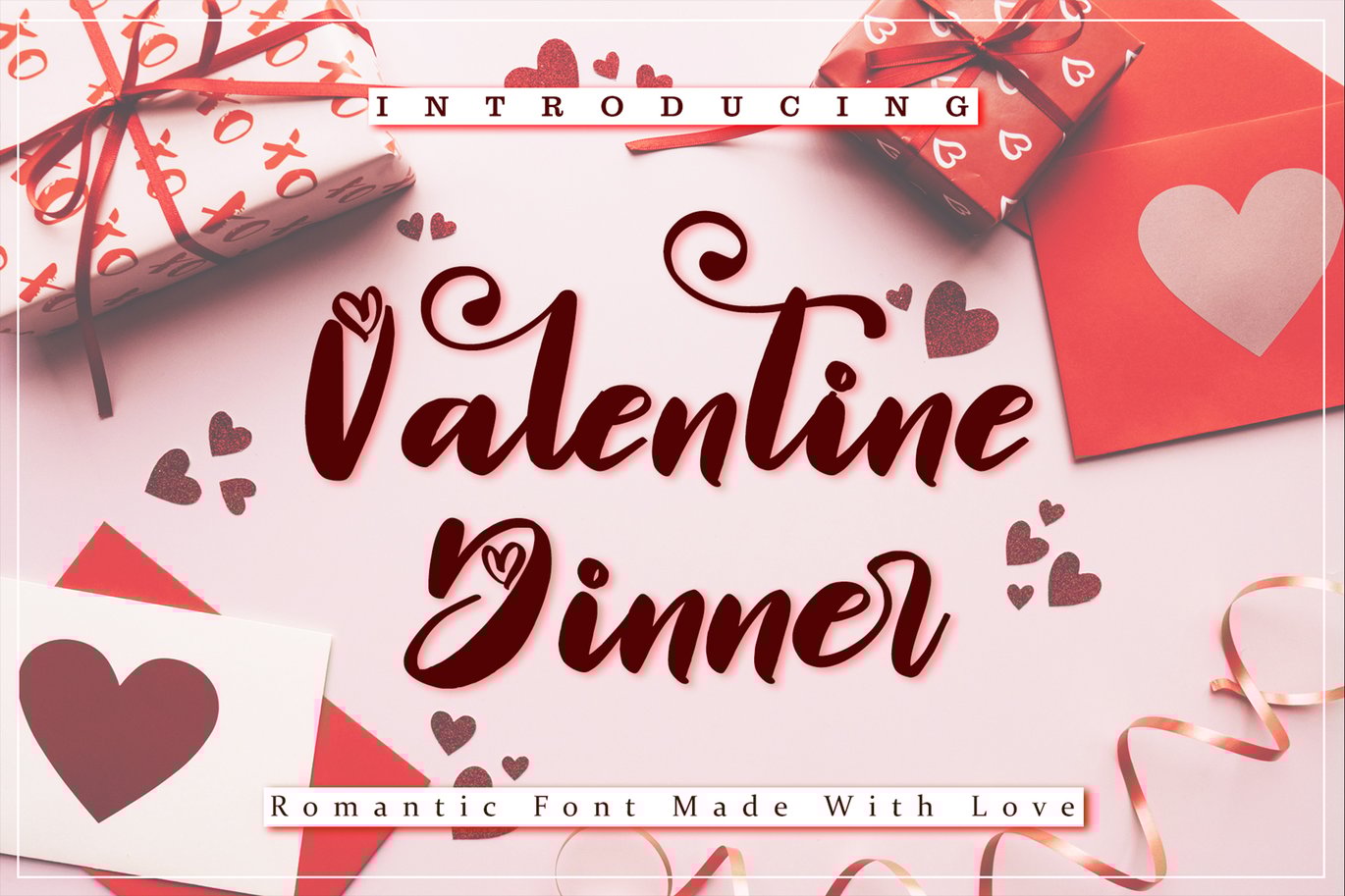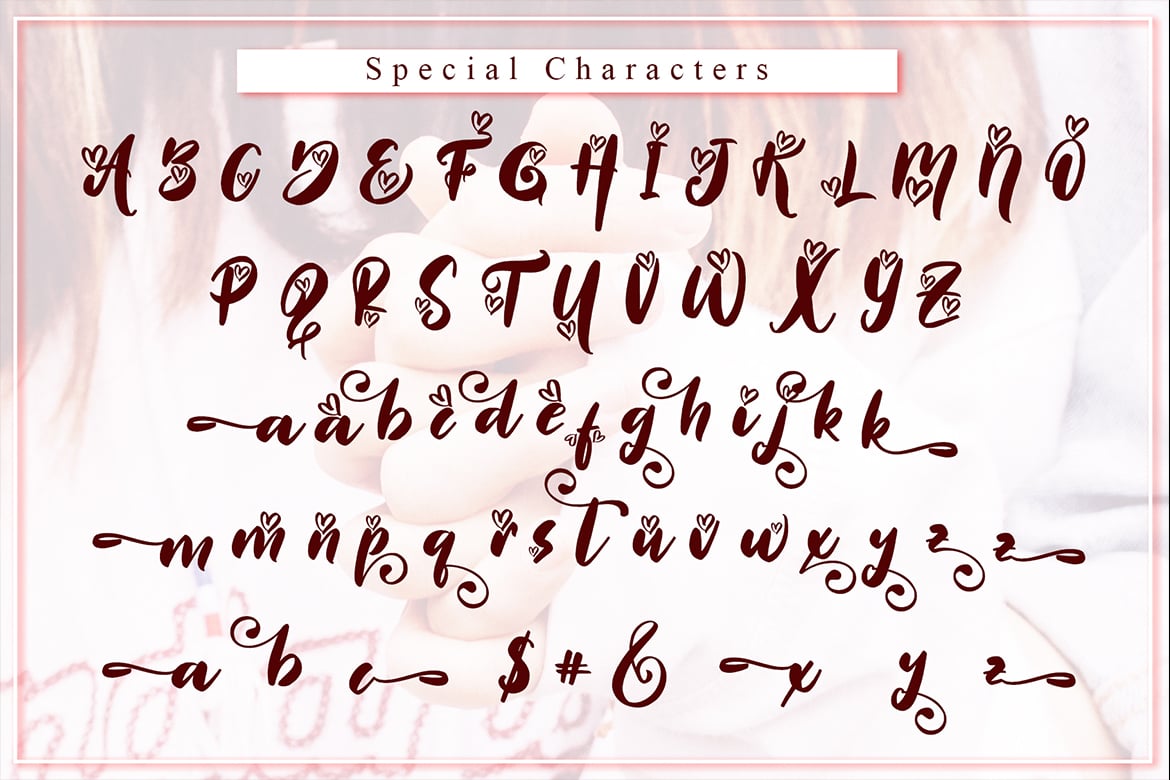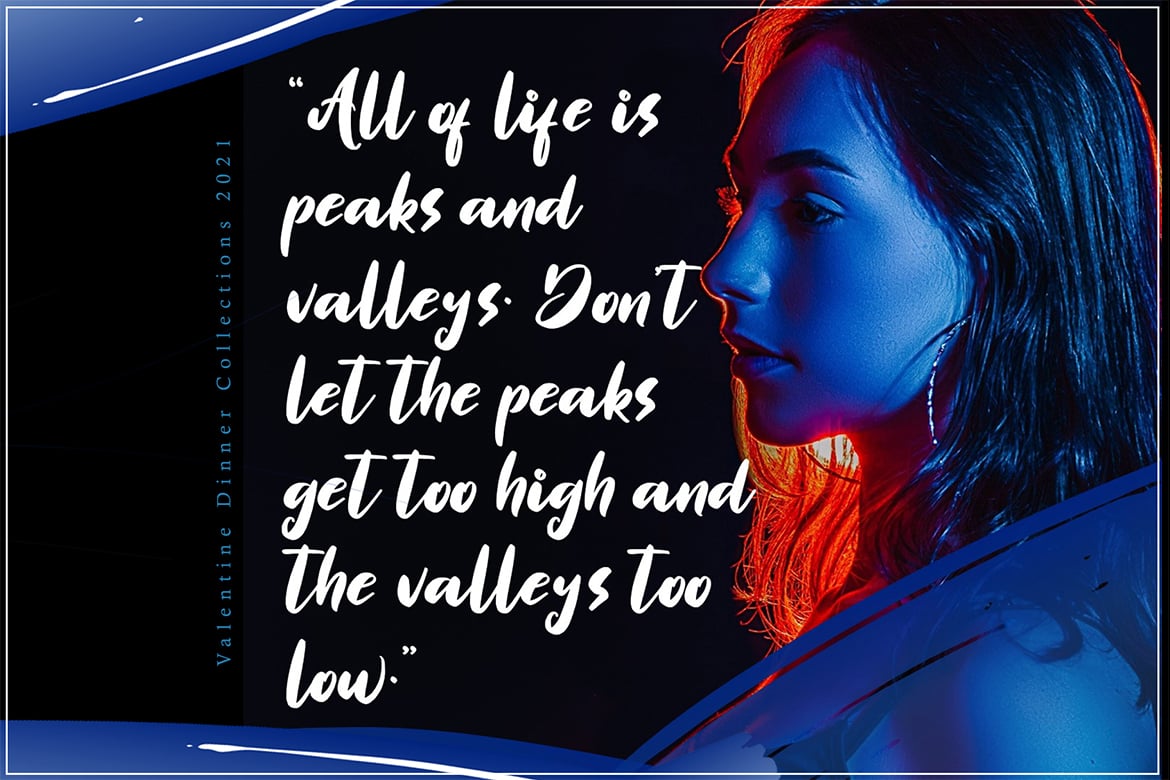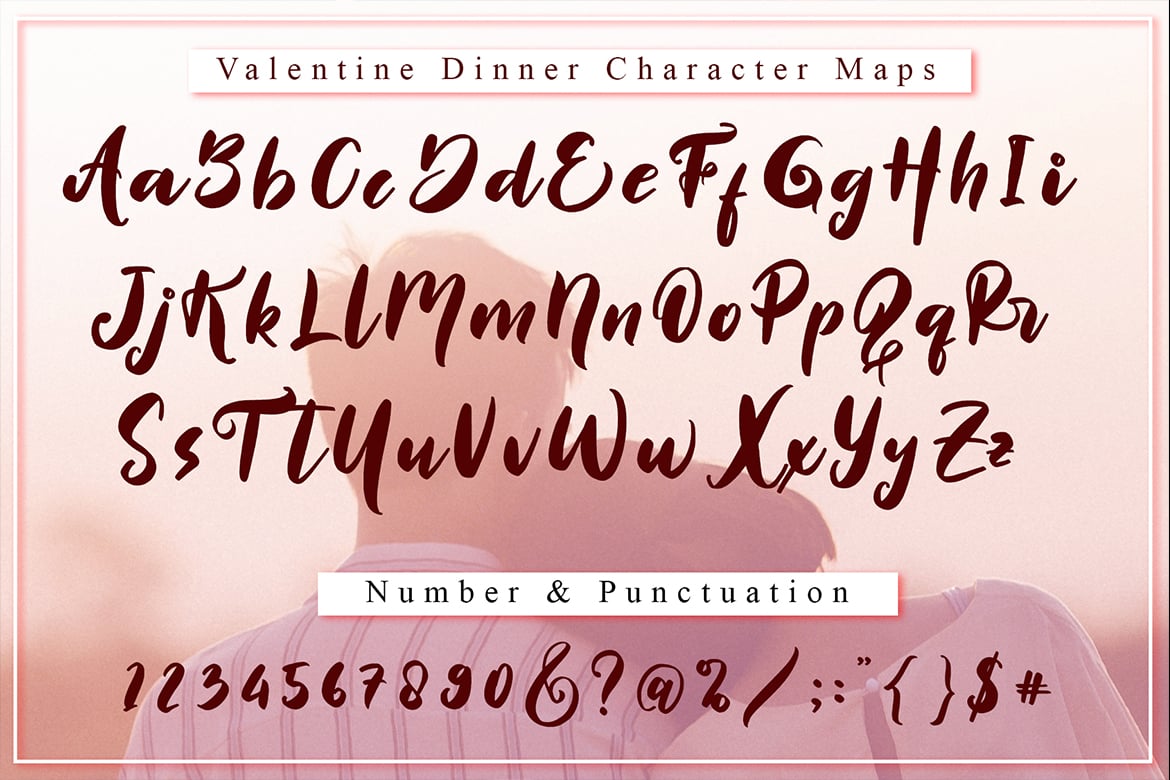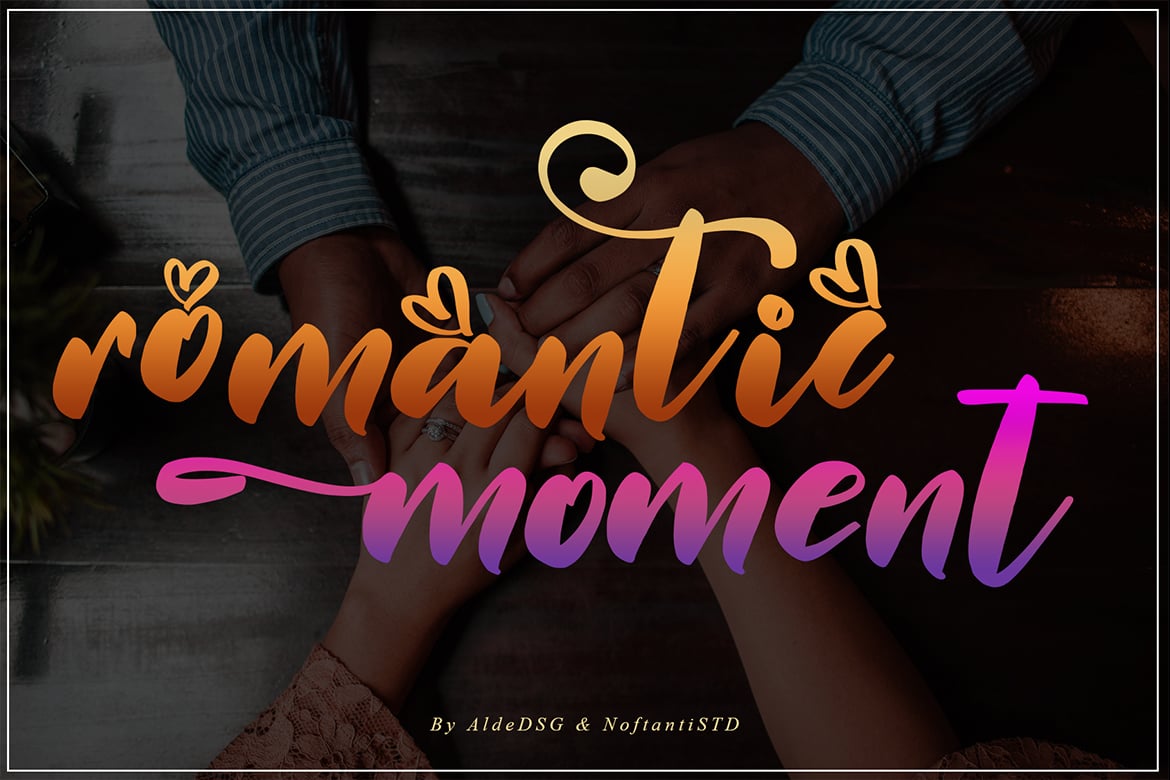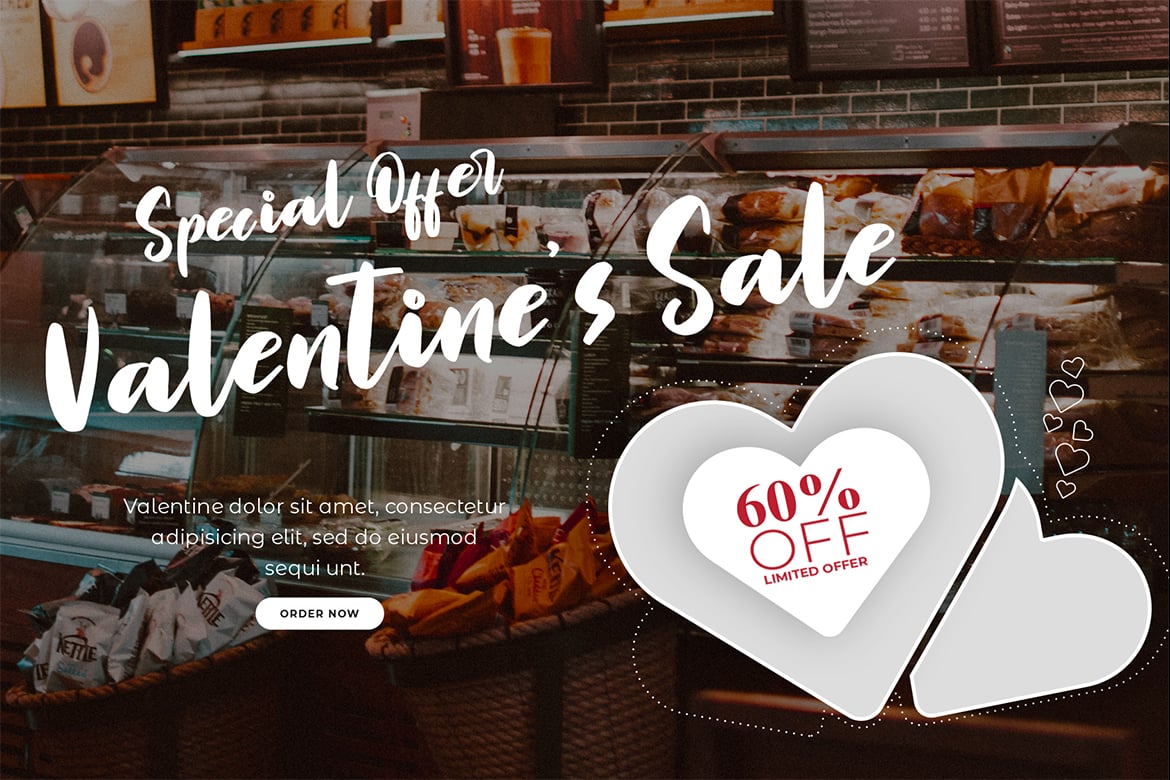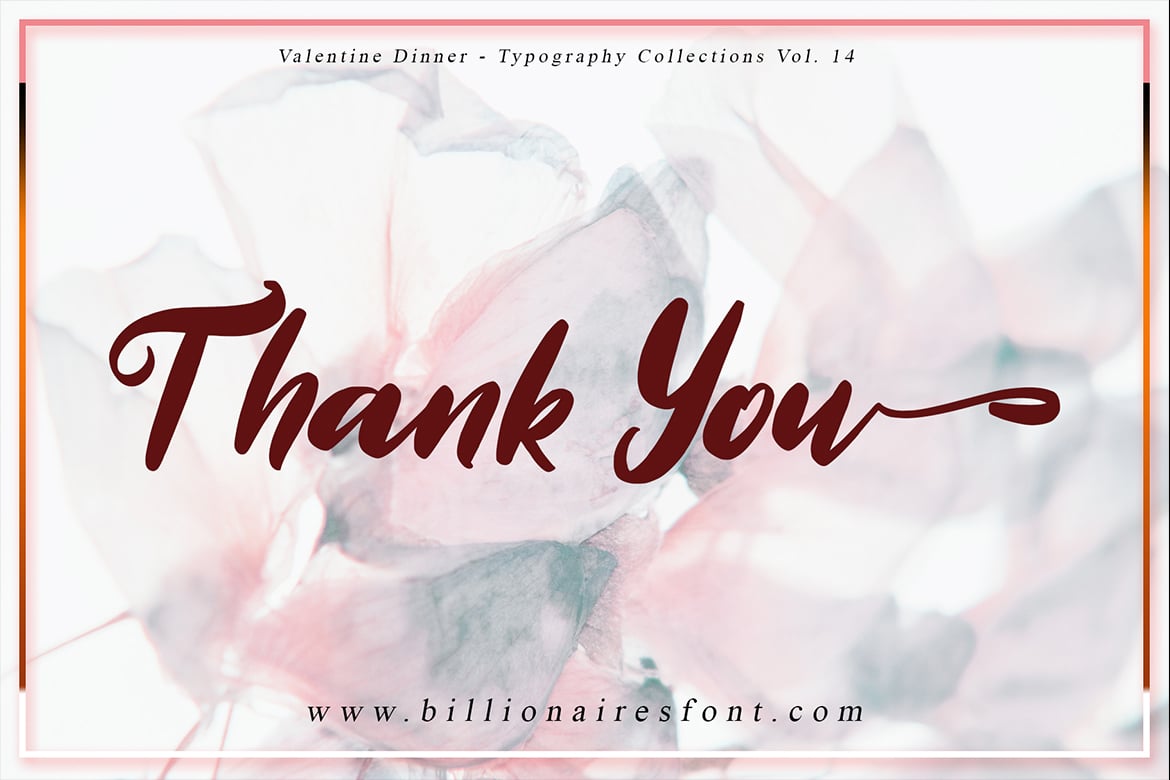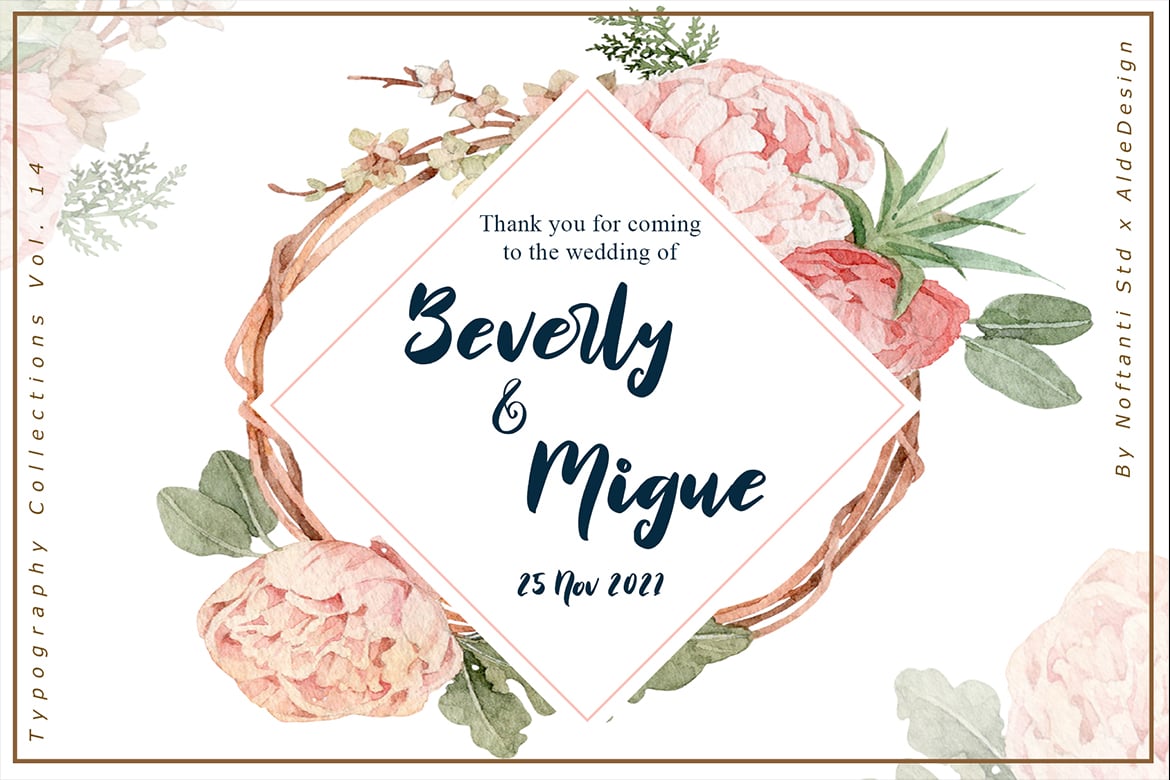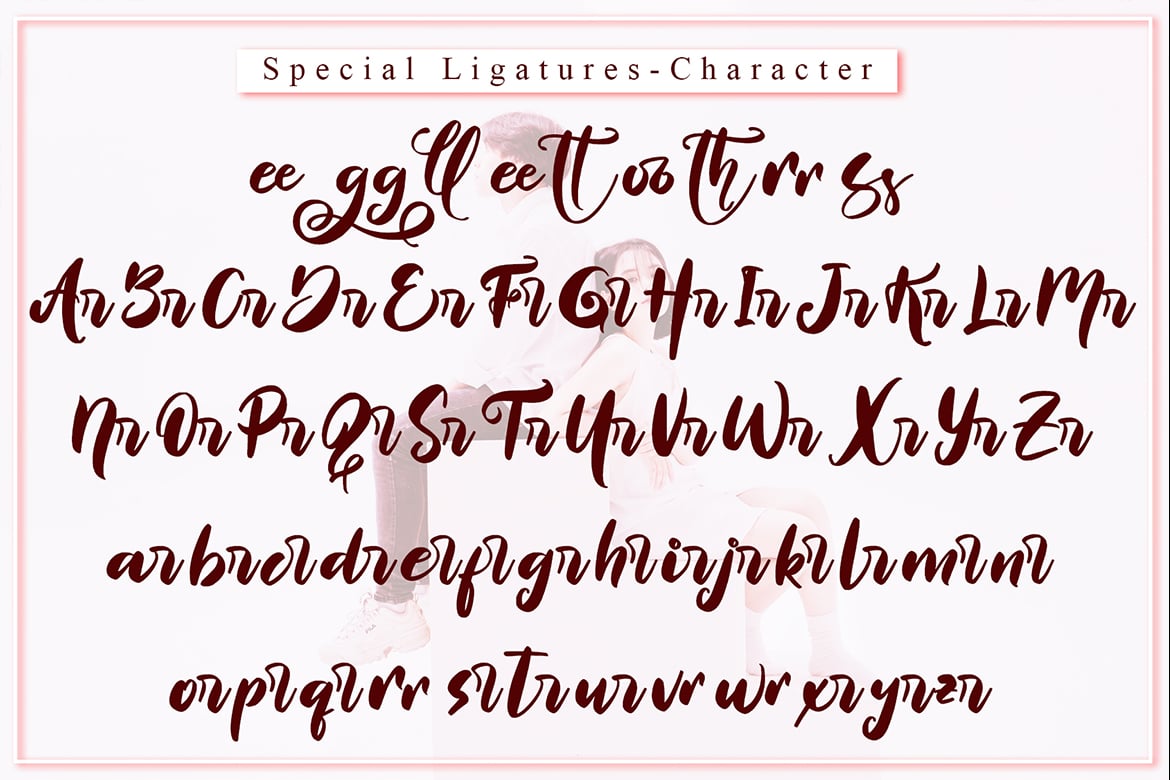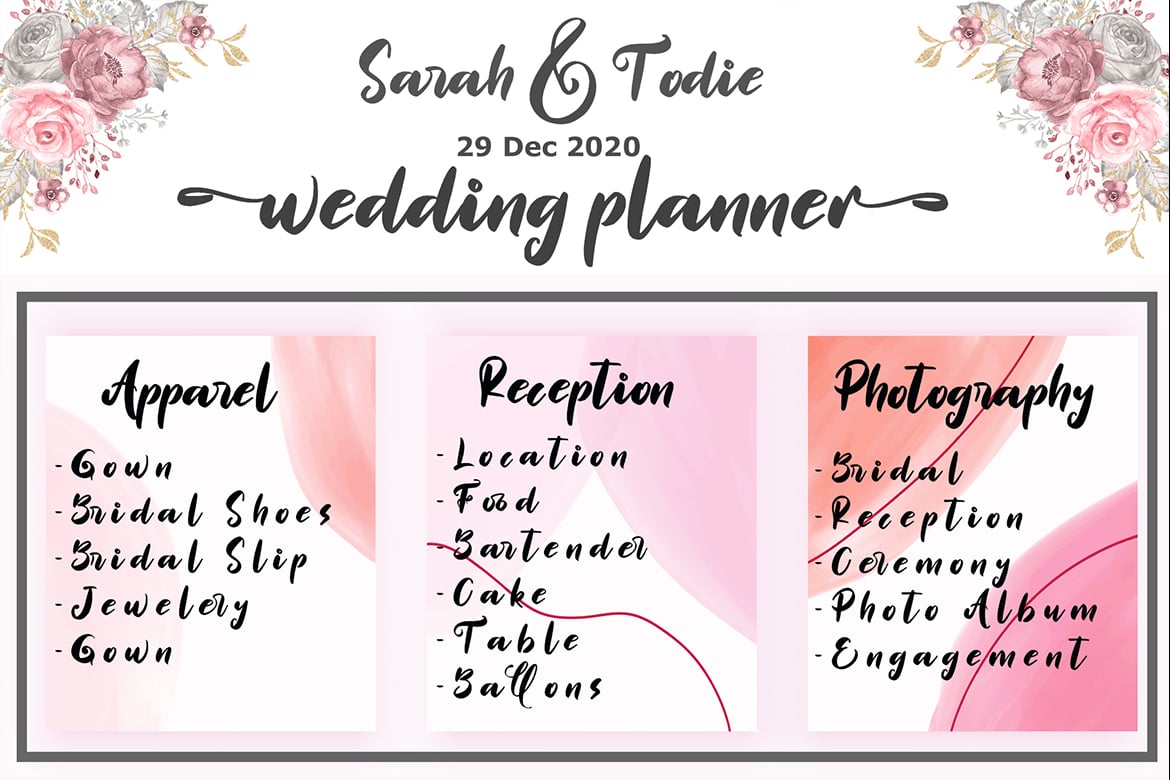
Valentine Dinner // Wedding Font
Valentine Dinner // Modern Wedding Font
Valentine Dinner is a beautiful and flowing handwritten font. It looks beautiful on a variety of designs requiring a personalized style, such as wedding invitations, thank you cards, weddings, greeting cards, logos, and so on.
It has beautiful and well-balanced characters and as a result, it matches a wide pool of designs. Driana Brideth features a varying baseline, smooth lines, gorgeous glyphs, and stunning alternates. Add it to your most creative ideas and notice how it makes them come alive!
- Stylish modern handwritten script
- Beautiful Swash (Ending tail)
- Beautiful Titling (Beginning tail)
- Special Ligatures